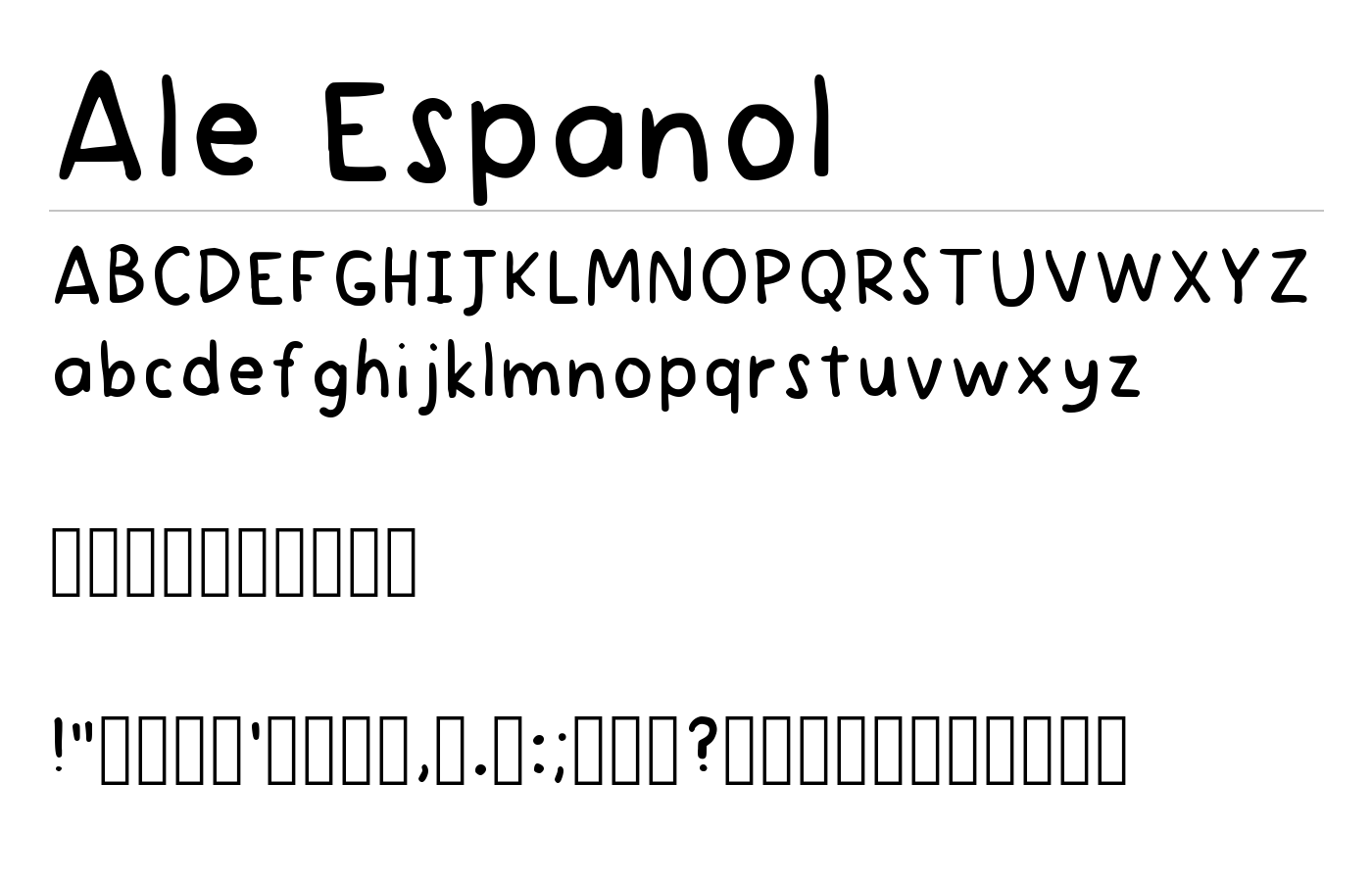
Ale Espanol is a casual, hand-drawn sans serif font with a friendly, approachable feel. Its irregular, rounded letterforms and moderate x-height give it a playful and informal style, perfect for projects that want to convey warmth and personality. This font works well in informal branding, children’s materials, and creative headlines where charm and readability are key.
Ale Espanol Font